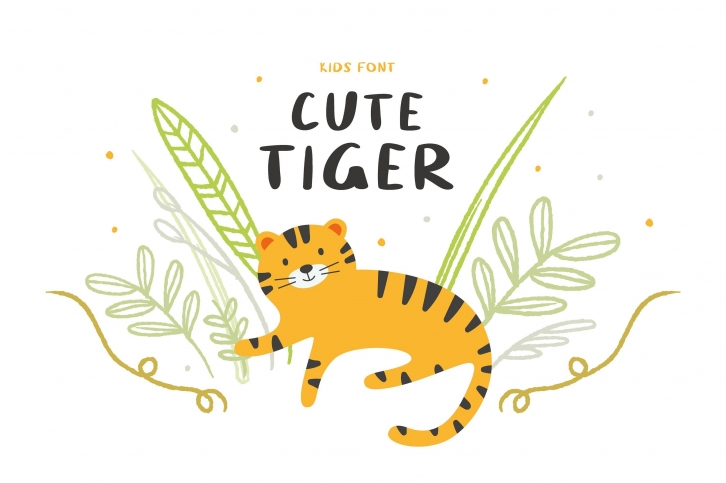
Cute tiger is a fun and friendly display font. Whether you are using it for cartoon-related designs, children’s games, quotes, titles, brand names, book covers, posters, or just any creation that requires a touch of joy, this font is a great choice.